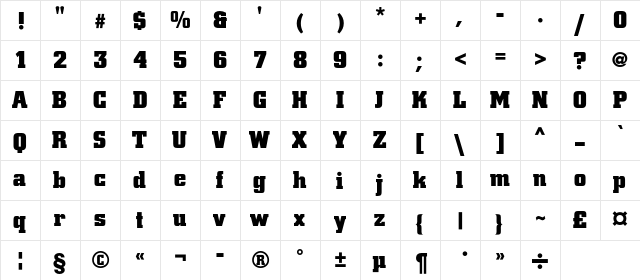
Coliseum-UltraBlack Regular Font Preview
Coliseum-UltraBlack Regular
Design Context for Coliseum-UltraBlack Typeface
Coliseum-UltraBlack is a composed and adaptable typeface that performs quietly and consistently across a wide range of design contexts.